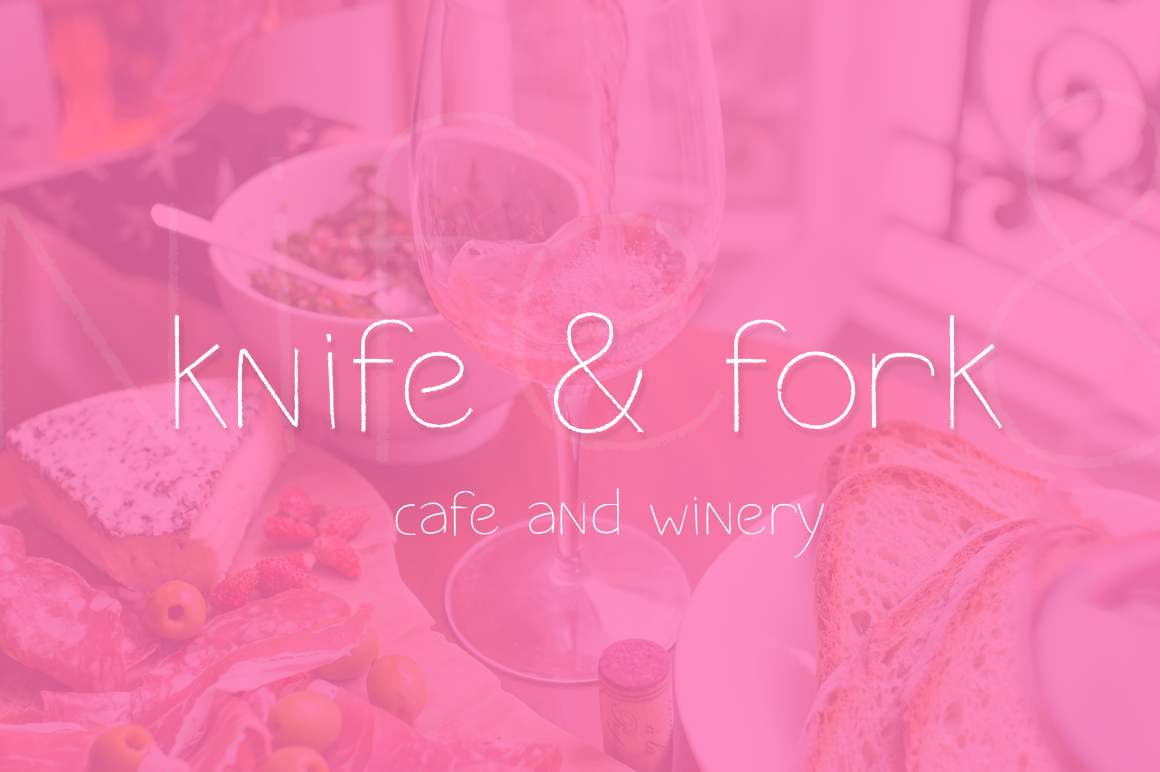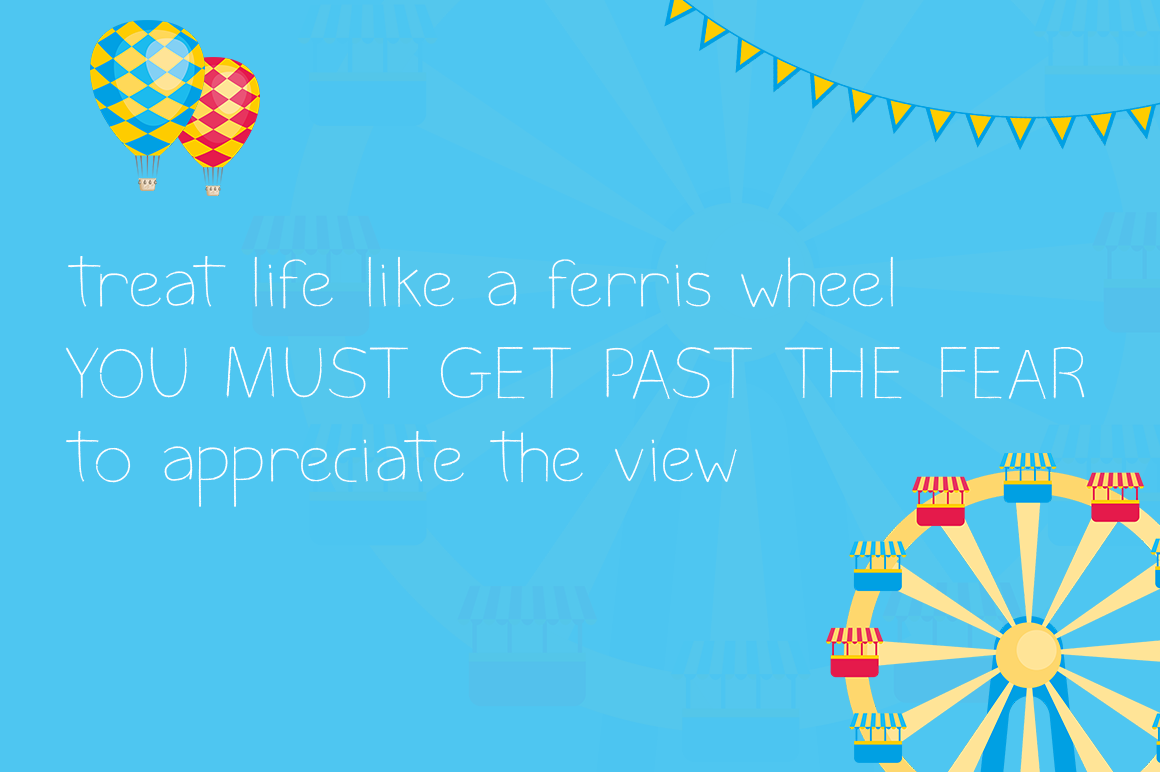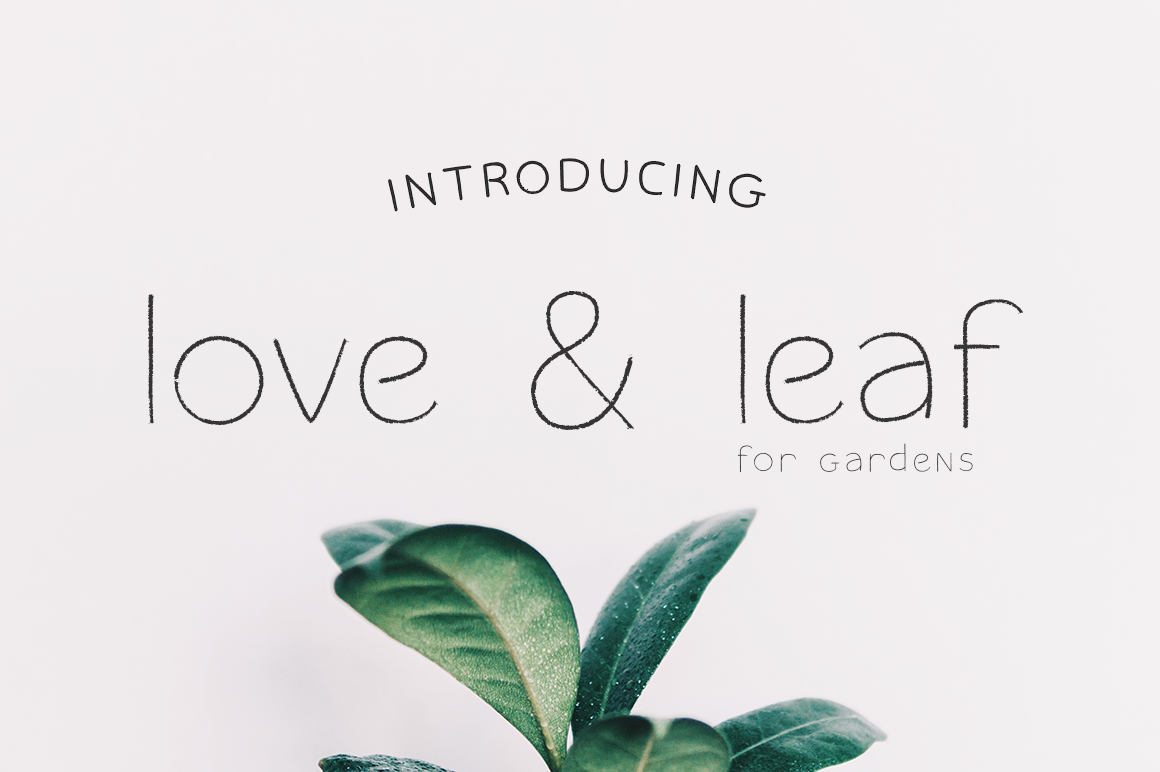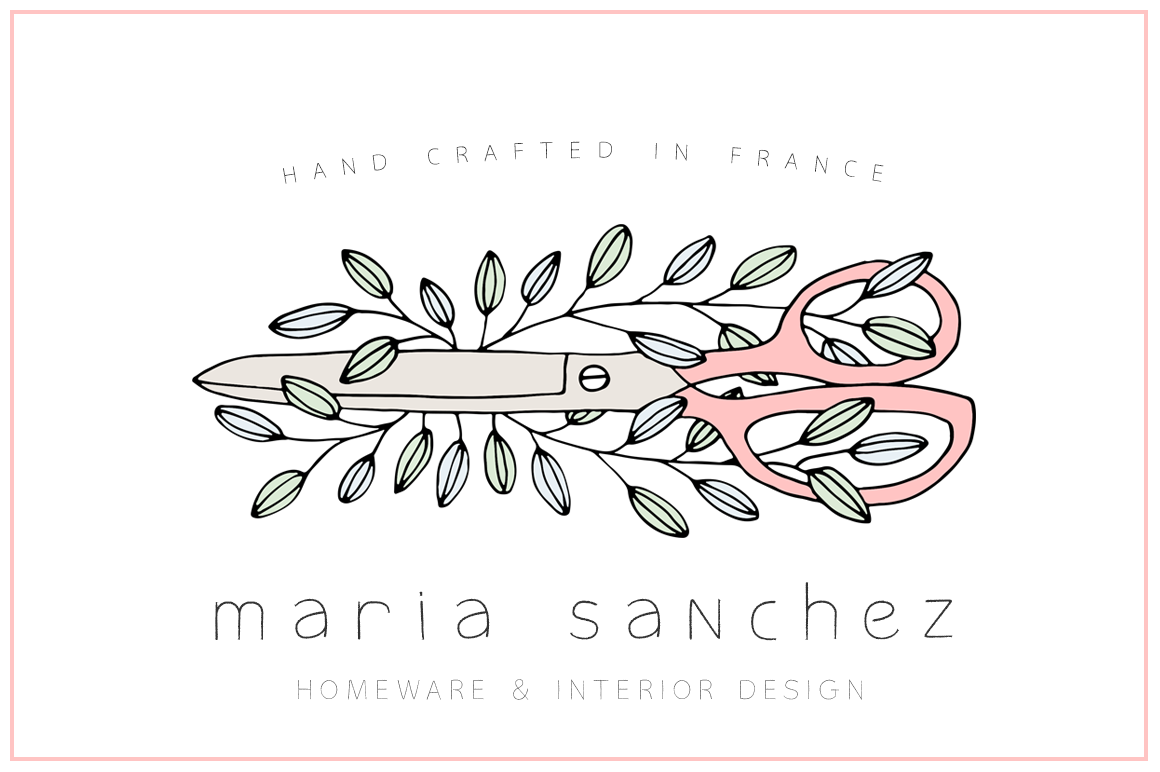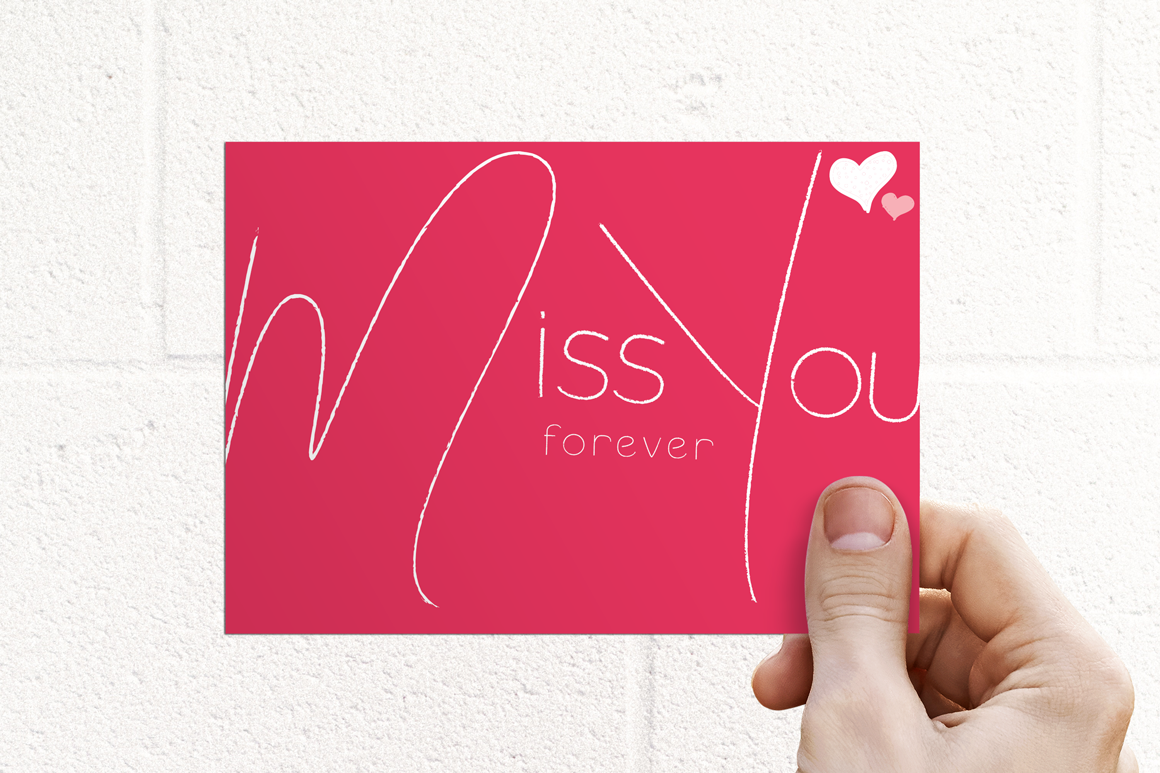
Introducing the Amazing Funfair Duo: Elevate Your Designs with Whimsy and Wonder
Are you ready to add a dash of excitement and playfulness to your designs? Look no further than the Funfair font duo, a match made in heaven for designers and crafters seeking to infuse their projects with a sense of whimsy and fun. This dynamic duo consists of two complementary fonts: the fabulously quirky regular Funfair font and the straight, textured Funfair Caps. Together, they are the perfect pairing to bring a smile to your audience’s faces and make your designs stand out from the crowd.
The Funfair Font: A Fabulously Quirky Regular Font
The regular Funfair font is a true showstopper, boasting extra-large capital letters that are as oversized and playful as a clown’s shoes. These large caps are not just visually striking; they also add a touch of nostalgia and charm to any design. Imagine using them for headings, titles, or even as a decorative element to draw attention to a specific part of your project. The possibilities are endless!
But what really sets the Funfair font apart is its beautifully textured lowercase letters. These straight, clean lines provide a perfect contrast to the more playful caps, creating a delightful visual balance that will keep your audience engaged. Whether you’re designing a children’s book, a craft project, or a website, the regular Funfair font is sure to bring a sense of joy and wonder to your work.
Funfair Caps: The Perfect Complement to the Regular Font
Just like candy floss and corn dogs are the perfect pair at the funfair, Funfair Caps is the ideal complement to the regular Funfair font. This font takes the playful spirit of its counterpart and amplifies it, offering a straight, textured look that adds depth and interest to your designs. Funfair Caps is perfect for creating bold statements, highlighting important information, or simply adding a touch of texture to your text.
One of the best things about Funfair Caps is its versatility. You can use it on its own for a more subtle look or pair it with the regular Funfair font for a dynamic duo that packs a punch. The contrast between the two fonts creates a visually appealing effect that will elevate your designs and make them more engaging.
Why Choose the Funfair Font Duo?
So, why should you choose the Funfair font duo for your next project? Here are just a few reasons why designers and crafters are falling in love with these amazing fonts:
• Unique and Playful Style: The Funfair font duo offers a unique and playful style that will set your designs apart from the crowd. Whether you’re working on a children’s project or an adult-oriented design, these fonts are sure to bring a smile to your audience’s faces.
• Versatility: Both fonts in the duo are incredibly versatile, making them suitable for a wide range of projects, from digital designs to print materials.
• Ease of Use: The Funfair fonts are easy to use and pair well with a variety of other fonts, making it simple to create stunning designs.
• Instant Impact: With their bold, playful style, the Funfair fonts can instantly elevate your designs and grab your audience’s attention.
How to Use the Funfair Font Duo in Your Designs
Ready to get started with the Funfair font duo? Here are a few ideas to get you started:
• Children’s Projects: The Funfair font duo is perfect for children’s books, educational materials, and craft projects. The playful style and whimsical feel will delight kids and parents alike.
• Party Invitations and Decor: Create eye-catching party invitations, banners, and decorations with the Funfair font duo. The bold, playful style is sure to set the tone for a fun and festive celebration.
• Digital Designs: Use the Funfair fonts in your digital designs, such as social media graphics, blog posts, and website headers, to add a touch of whimsy and personality.
• Craft Projects: The Funfair font duo is a great addition to any craft project, from scrapbooking to card making. The unique style will add a personal touch to your creations.
In conclusion, the Funfair font duo is a fantastic addition to any designer’s or crafter’s toolkit. With their unique, playful style and versatility, these fonts are sure to bring a dash of excitement and whimsy to your projects. So why wait? Dive into the world of fun and creativity with the Funfair font duo and watch your designs come to life!